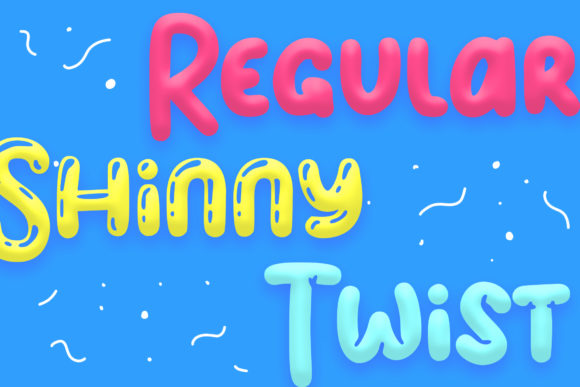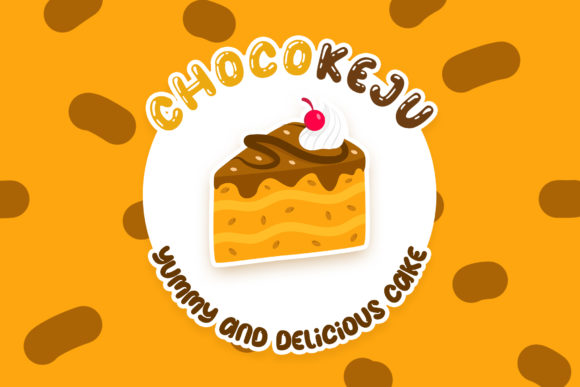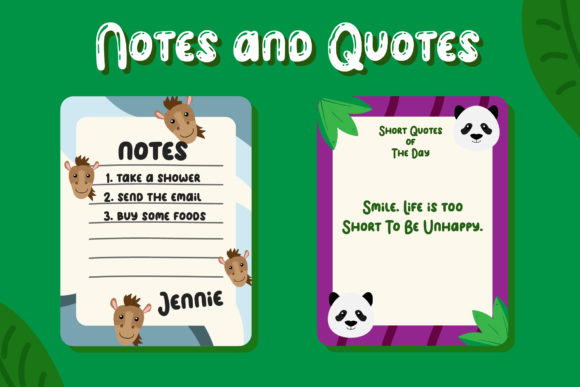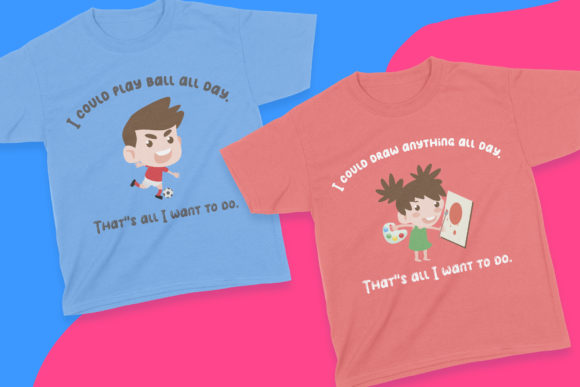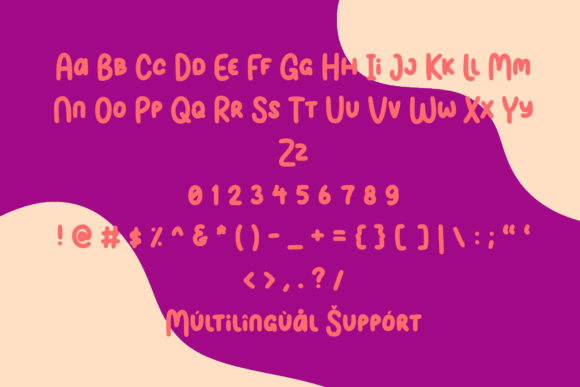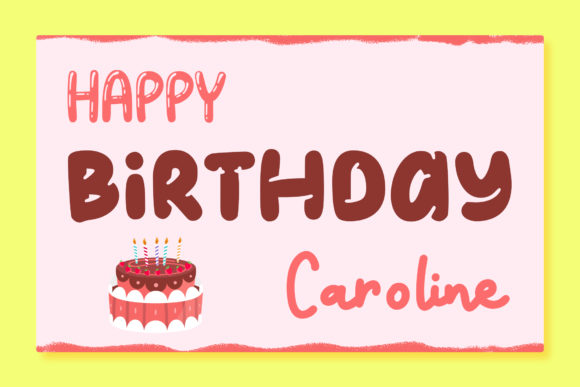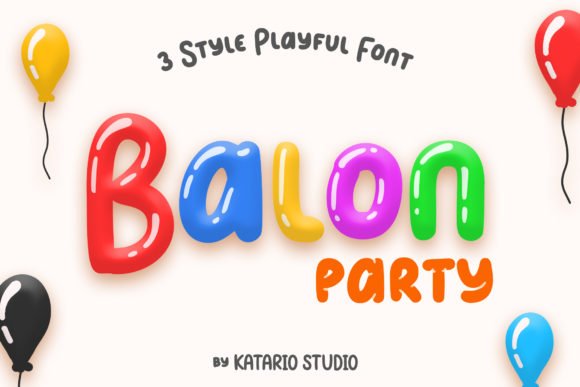
Getting Ready to Party with Fonts
Who hasn’t had that moment when a new font sparks an idea and suddenly you’re envisioning an entire design concept? For me, it was when I stumbled upon the Balon Party Font. Its quirky and bubbly nature instantly made me think of a children’s birthday party. The excitement and joy that comes with creating something for kids – it’s a feeling that’s hard to beat.
The Balon Party Font is a perfect example of how a font can bring a design to life. This display font is all about playfulness and authenticity, making it a great choice for kids-themed designs. When combined with bright colors, it’s a match made in heaven. As a designer, you’ll love having this font in your toolkit, as it adds a fun and unique touch to your projects.
Key Features of Balon Party Font
- Unique Characteristics: Balon Party Font features a playful, hand-drawn design with bold lines and vibrant colors, making it perfect for creating eye-catching graphics and party invitations.
Designer Review: Balon Party Font
Overall, I found the Balon Party Font to be a fun and playful addition to any design project. Here’s what I like:
- ✨ Unique and quirky design style that can add a pop of personality to your designs.
- ✨ A wide range of character sets, including uppercase and lowercase letters, numbers, and punctuation marks.
- ✨ Supports multiple languages, making it a great option for international projects.
- ⚠️ The font can be quite busy and overwhelming, especially at smaller font sizes.
- ⚠️ The design style may not be to everyone’s taste, and some people may find it too whimsical or childish.
- ⚠️ Limited support for some special characters and symbols.
Overall, I think the Balon Party Font is a great option for designers who want to add a bit of flair to their projects. While it may not be suitable for every design, it’s a great choice for projects that require a playful or whimsical tone. With some careful selection and placement, this font can add a lot of visual interest to your designs.
Tips for Getting the Most Out of the Balon Party Font
To get the most out of the Balon Party Font, use it for titles, headings, and other emphasis text. The font is ideal for creating a playful and festive atmosphere, making it perfect for party invitations, social media graphics, and other celebratory content.
The Balon Party Font is ideal for:
- Social media graphics and posts
- Event marketing materials
Alternatives to Balon Party Font for Designers
Great Vibes is a modern, handwritten font perfect for creating a fun and energetic atmosphere. It’s ideal for use in social media graphics, advertisements, and other promotional materials. Great Vibes is more cursive and dynamic compared to Balon Party Font, which has a more playful and informal feel.
Crimson Text is a serif font with a classic, elegant feel. It’s suitable for use in long-form content, such as articles, books, and websites. Compared to Balon Party Font, Crimson Text has a more formal and sophisticated look, making it ideal for corporate or academic projects.
Alex Brush is a calligraphy-based font with a beautiful, handwritten feel. It’s perfect for use in wedding invitations, greeting cards, and other special occasions. Alex Brush has a more refined and elegant look compared to Balon Party Font, which is more playful and informal.